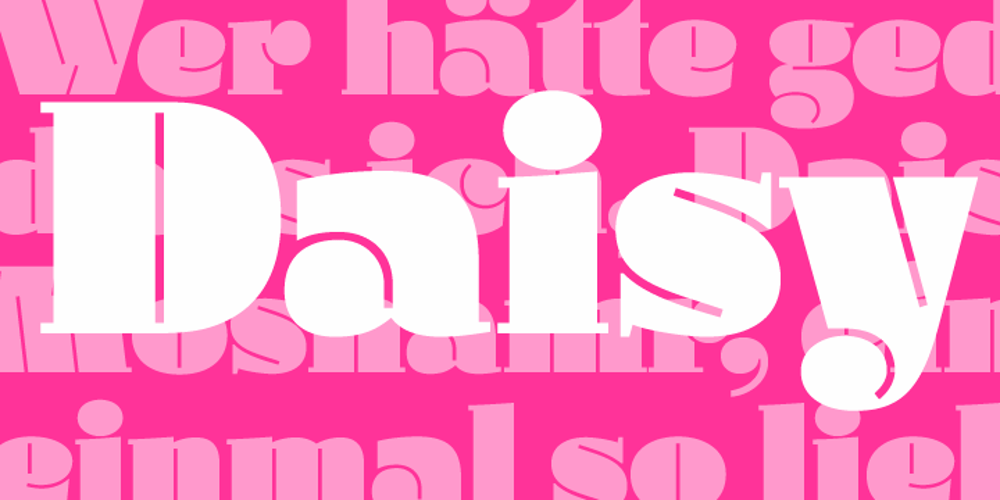
Daisy
Daisy font
Daisy Font Family was designed by Ludwig Übele and published by Ludwig Type. Daisy contains 2 styles and family package options. Daisy is an ultra-fat serif typeface with very fine counters.